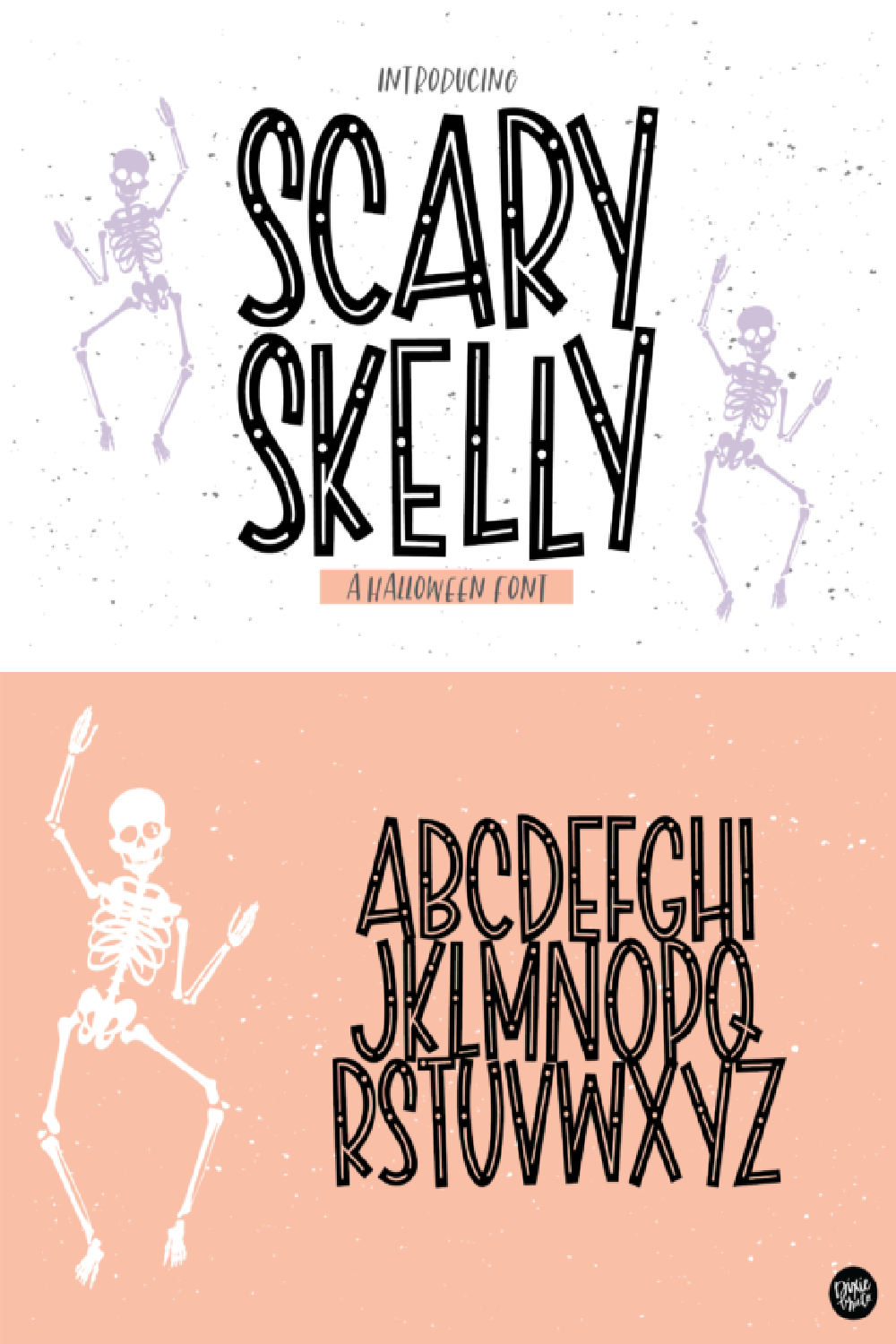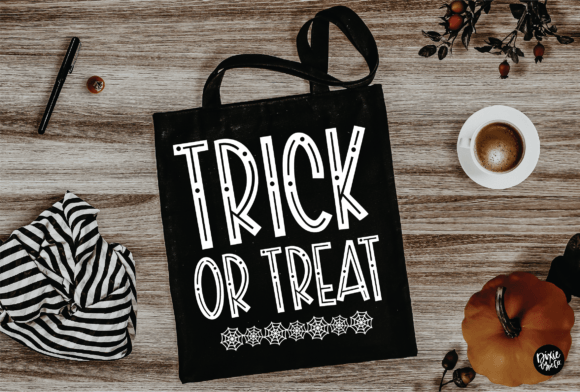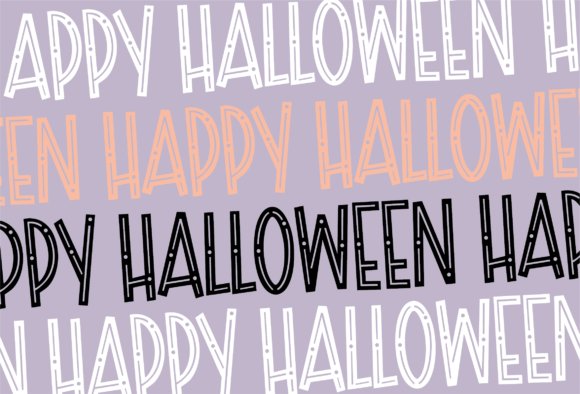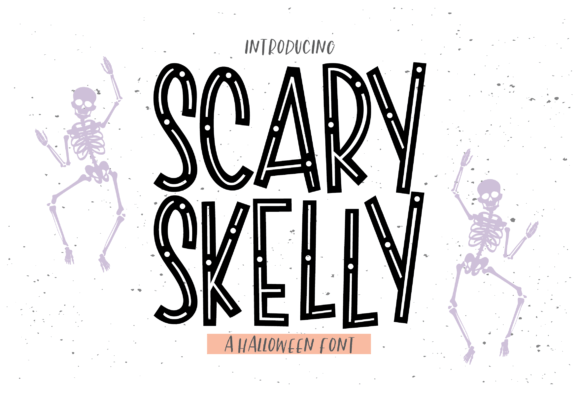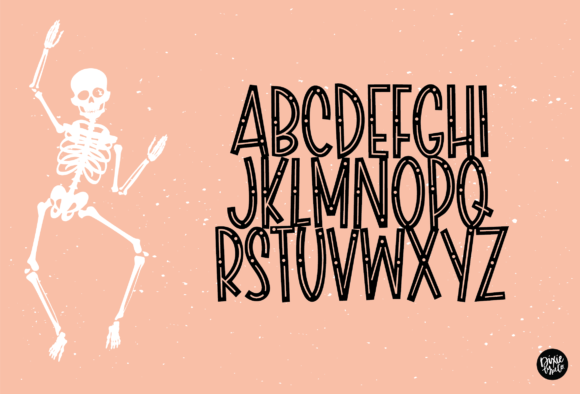
Scary Skelly Font
About the Scary Skelly Font
Get ready to be inspired by Scary Skelly Font, a fresh and dynamic typeface for modern creators. “Scary Skelly”
A Decorative Halloween Font
This is an installable font that will work great with your Halloween party invitations, web graphics, and other Halloween decor.
Scary Skelly Font Usage Examples